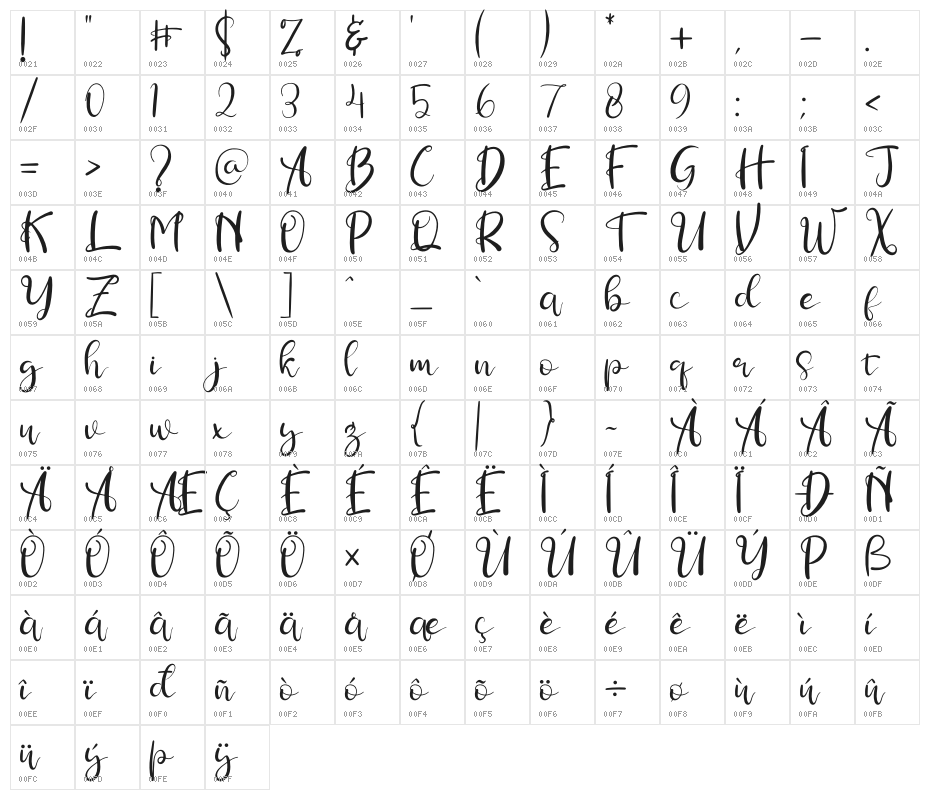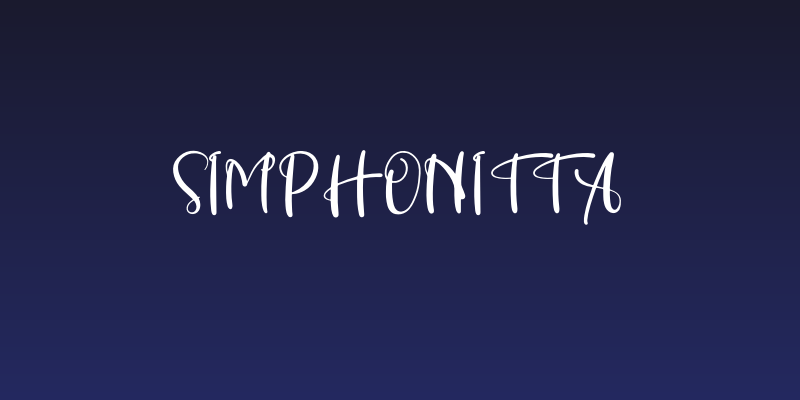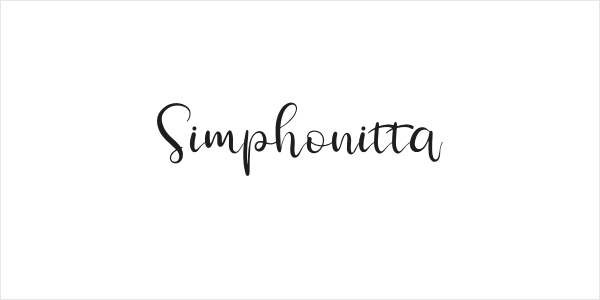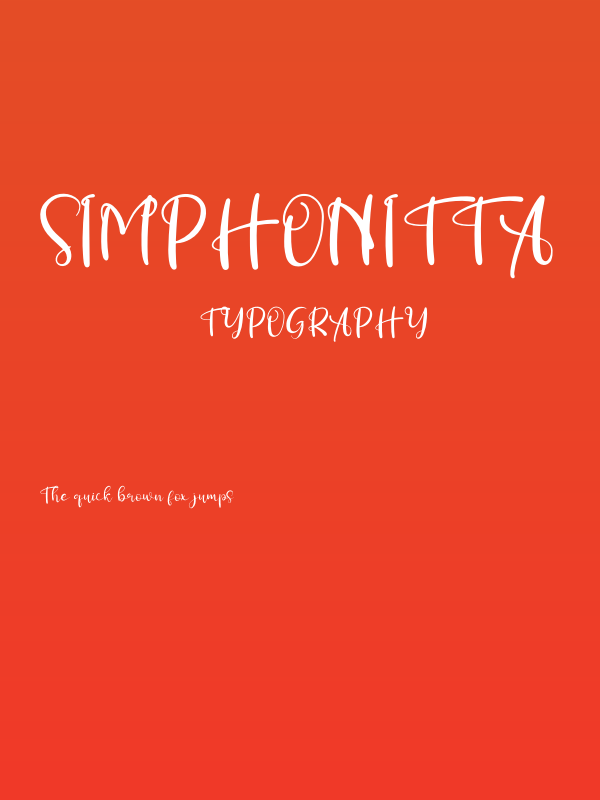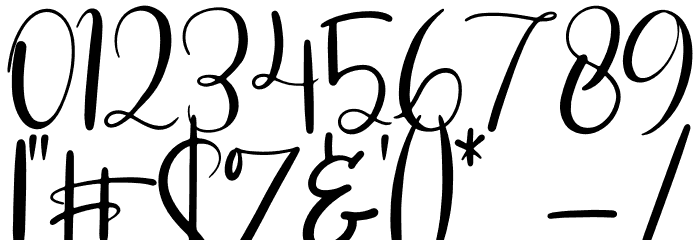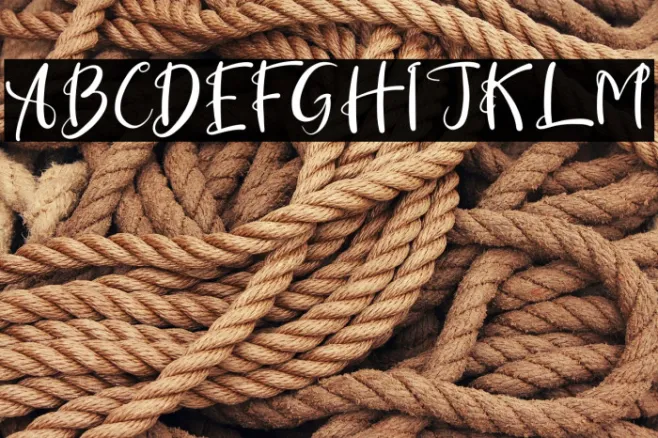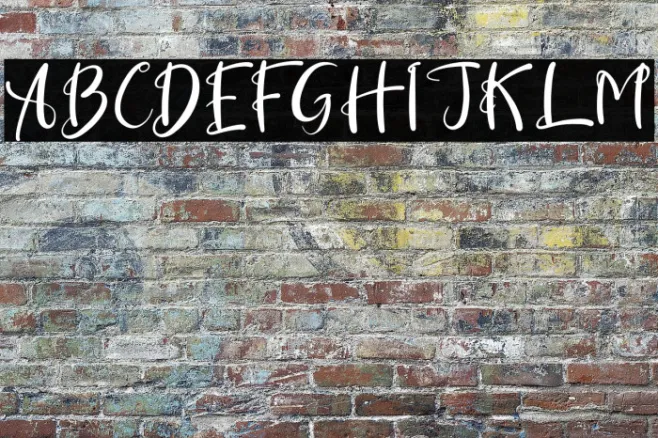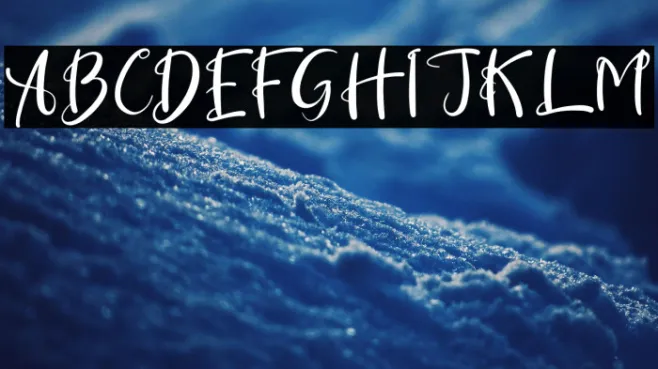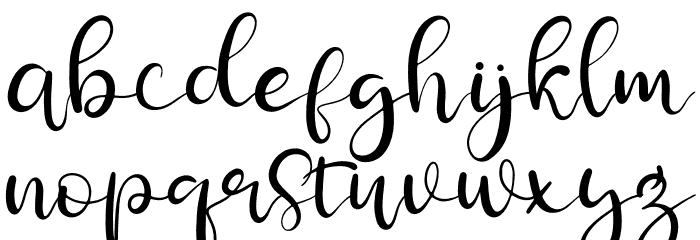
Simphonitta Font
Simphonitta Description
This font features a flowing, cursive style with elegant loops and swashes, giving it a handwritten appearance. The uppercase letters are bold and expressive, while the lowercase letters maintain a consistent fluidity, enhancing the script-like quality. Numbers and special characters are designed with the same artistic flair, ensuring a cohesive look across all elements. The font's overall aesthetic is both playful and sophisticated, making it suitable for a variety of creative applications.
SIMPHONITTA UPPERCASE
SIMPHONITTA LOWERCASE
SIMPHONITTA OTHER CHARS